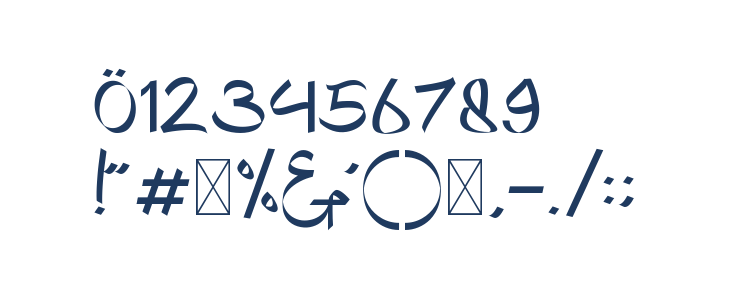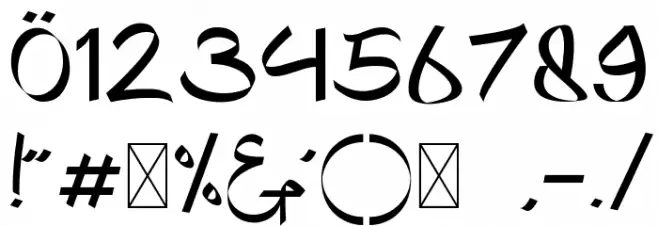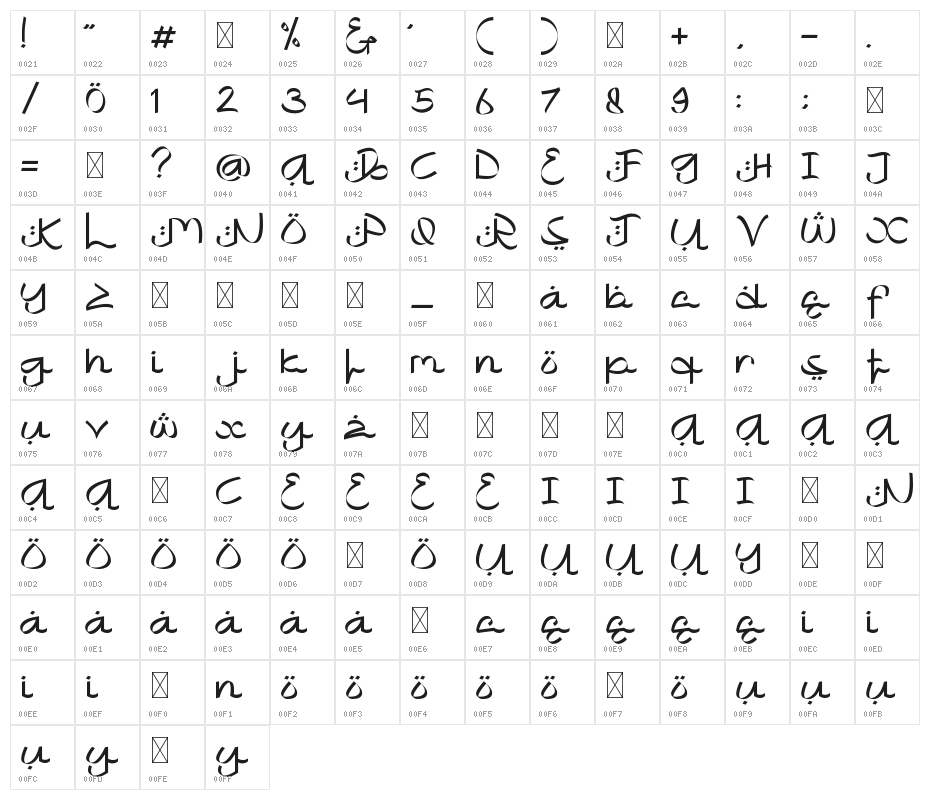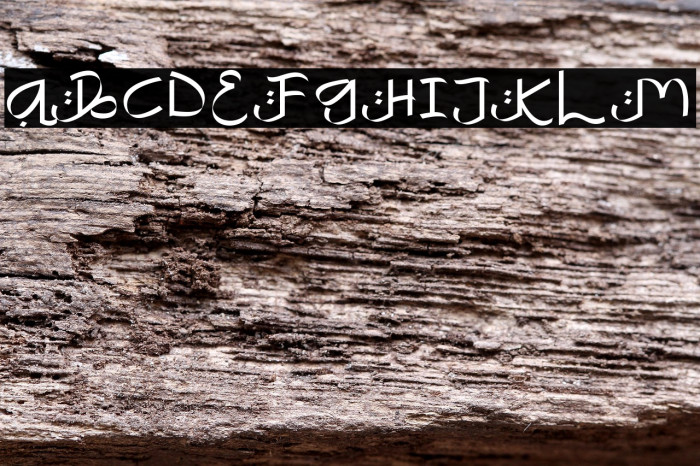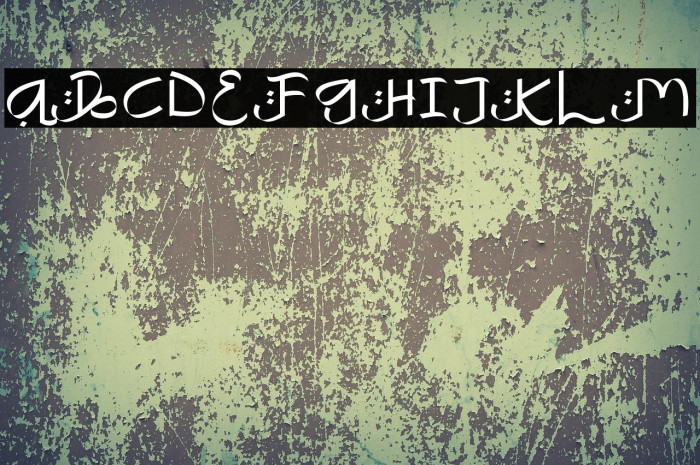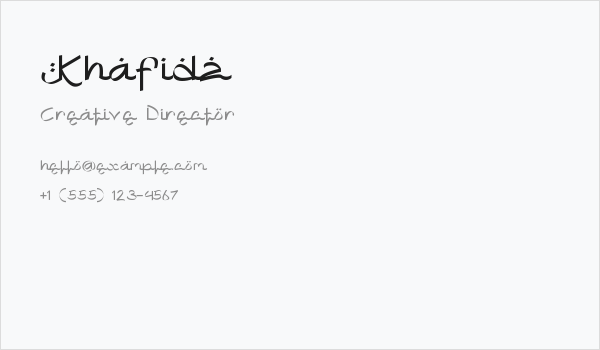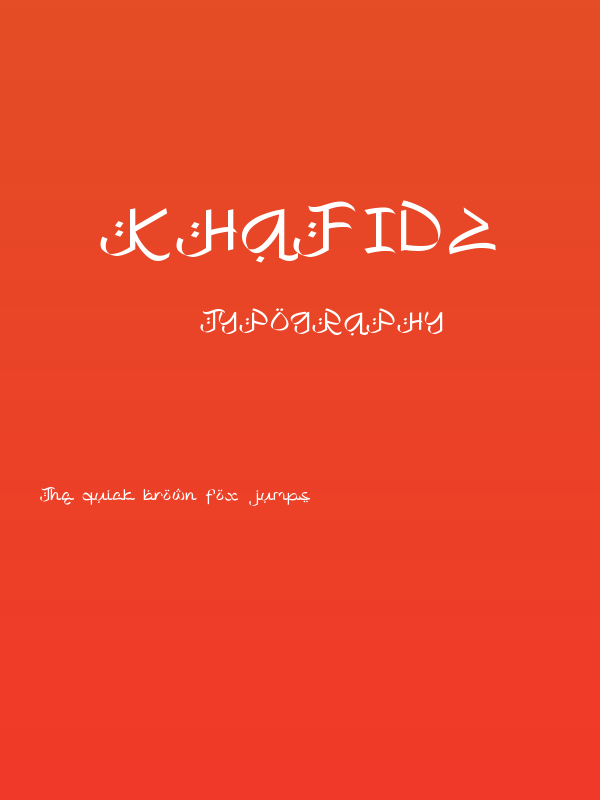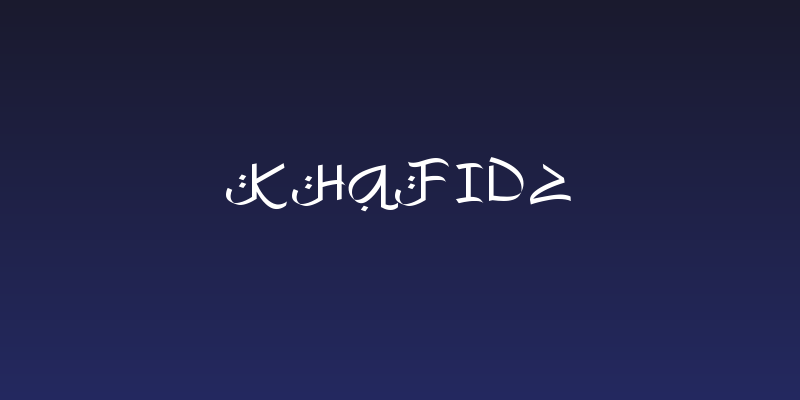
Khafidz Font
Khafidz Description
This font features a unique and artistic style, characterized by its flowing, cursive-like letters that incorporate decorative elements. The uppercase letters are bold and dynamic, with a distinct flair that adds a touch of elegance and creativity. The lowercase letters maintain a consistent style, offering a harmonious blend of curves and lines. The numerals are bold and clear, ensuring readability while maintaining the artistic theme. Special characters are creatively designed, adding to the font's overall aesthetic appeal. This font stands out with its decorative dots and curves, making it suitable for artistic and creative projects.
| Overall Style | Artistic and Decorative |
| Use Case | Headlines, Artistic projects, Branding |
| Proposed Projects | Ideal for creative projects such as invitations, greeting cards, artistic posters, and branding materials that require a touch of elegance and uniqueness. |